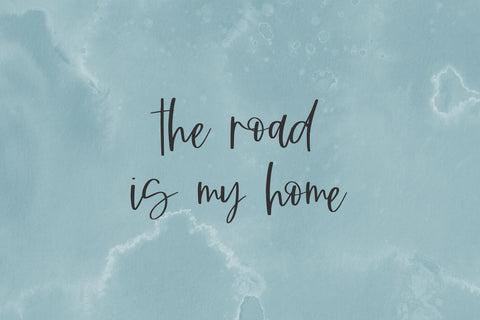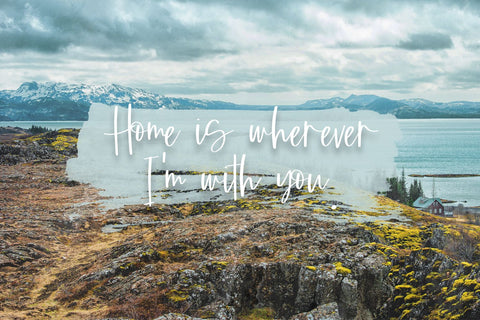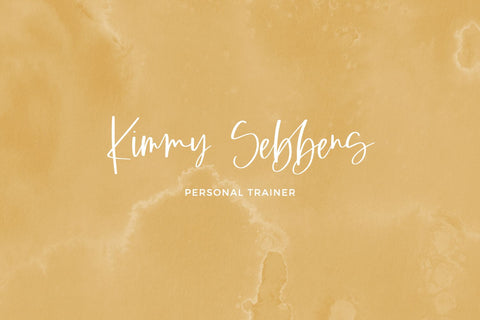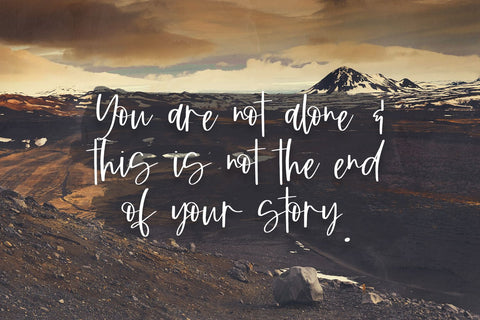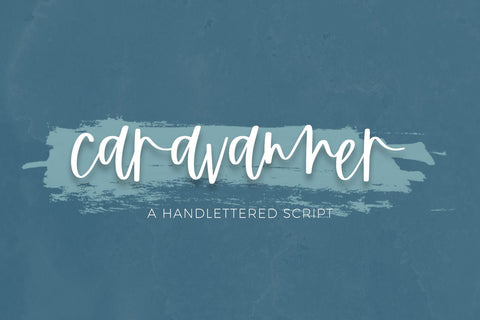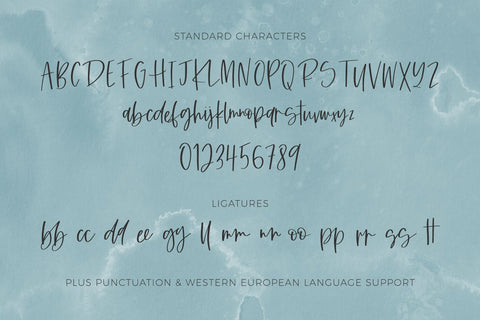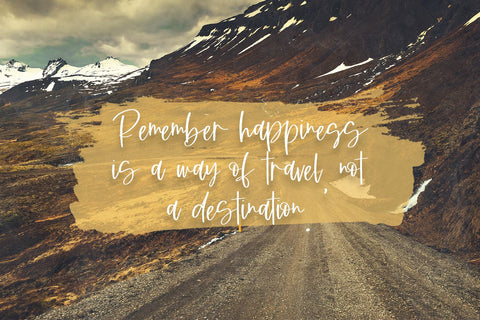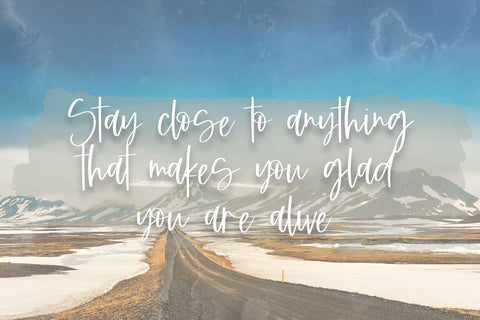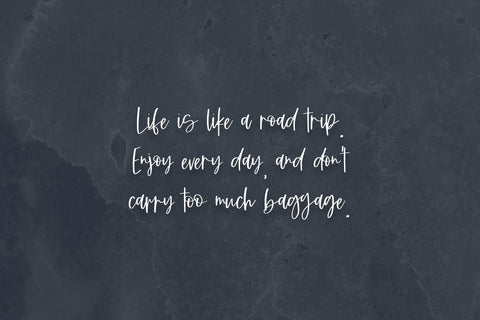
Caravanner Script Font
Introducing Caravanner Script, a handwritten signature style font.  This stylish font features a messy, scribbly look and ligatures to enhance the flow of the handwriting look.
Caravanner Script is best for:
- logos + branding
- website design + website accents - think travel blogs, fashion blogs, & more
- clean print design, like magazines + flyers
- header elements that need handwritten touch
- quote graphics for social media
Caravanner includes:
- full upper + lowercase characters
- numbers + punctuation
- Western European Language Support
- 13 common double letter ligatures - bb, cc, dd, ee, gg, ll, mm, nn, oo, pp, rr, ss, tt